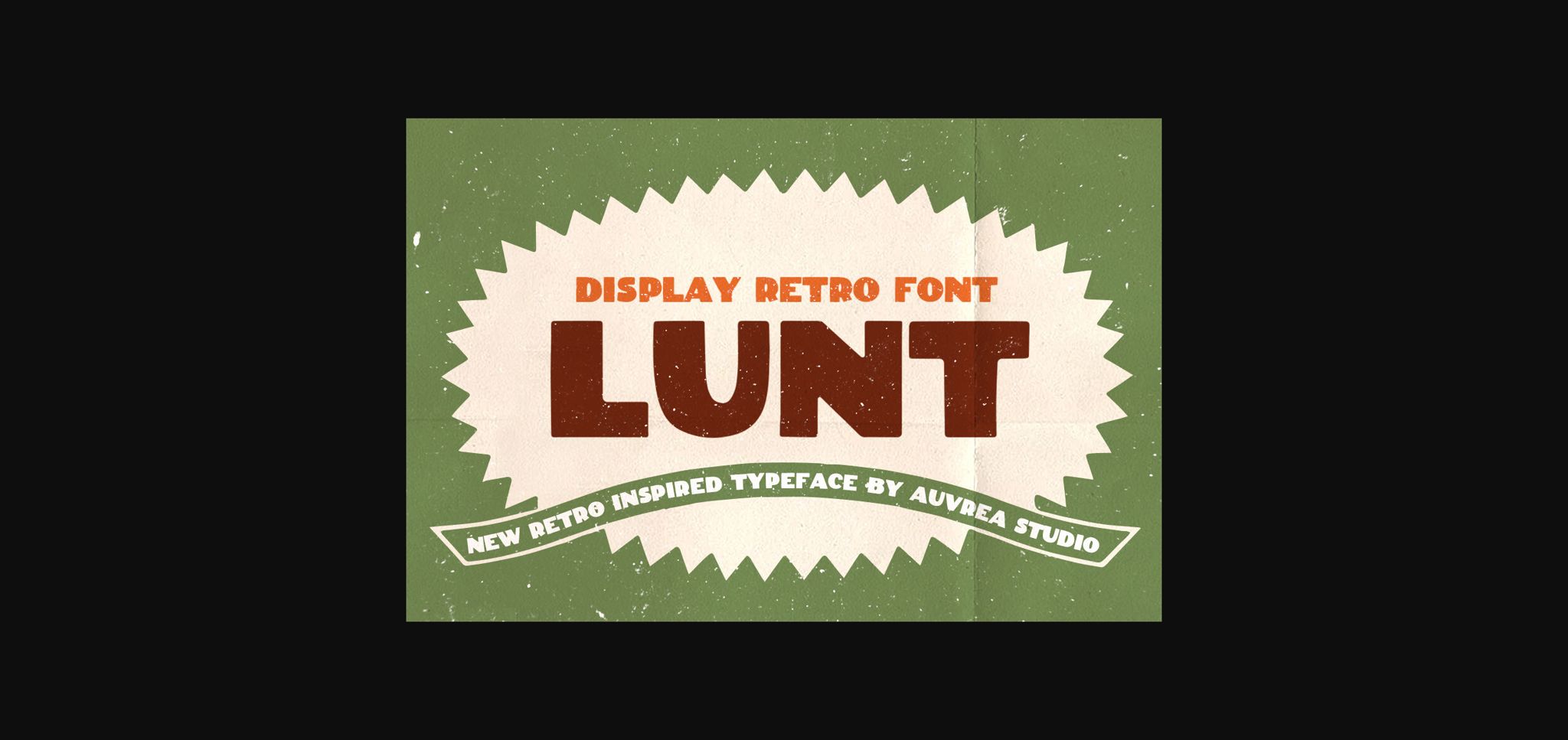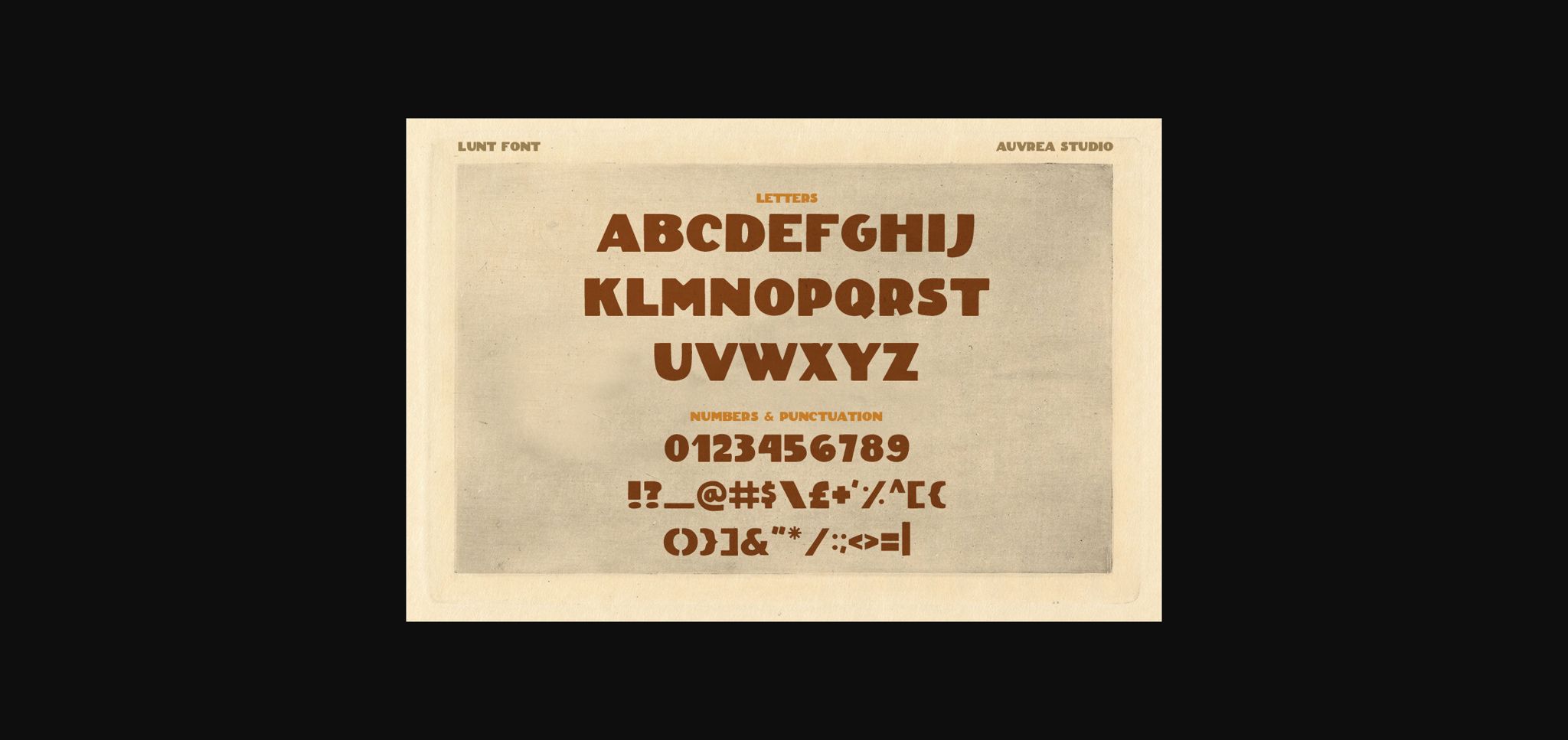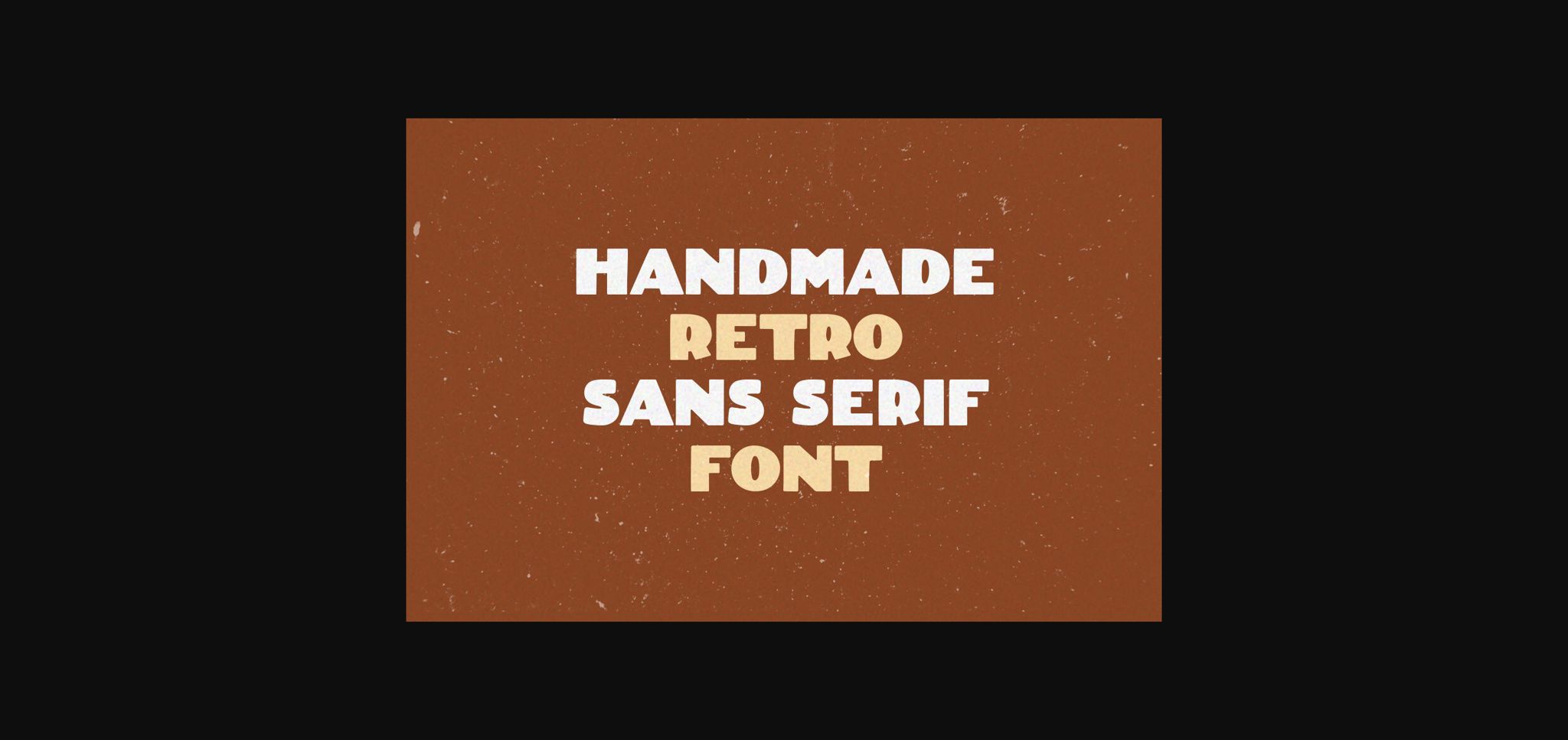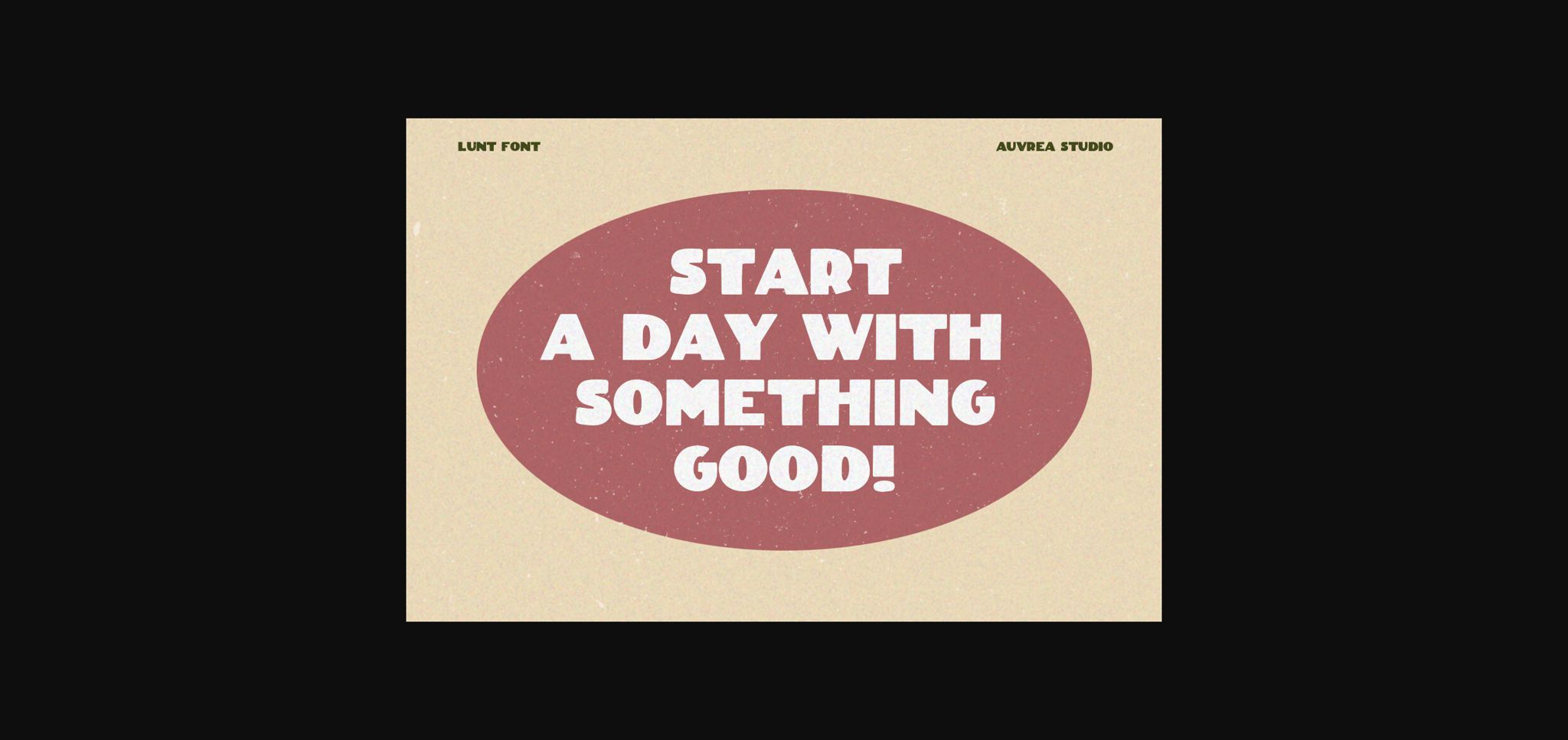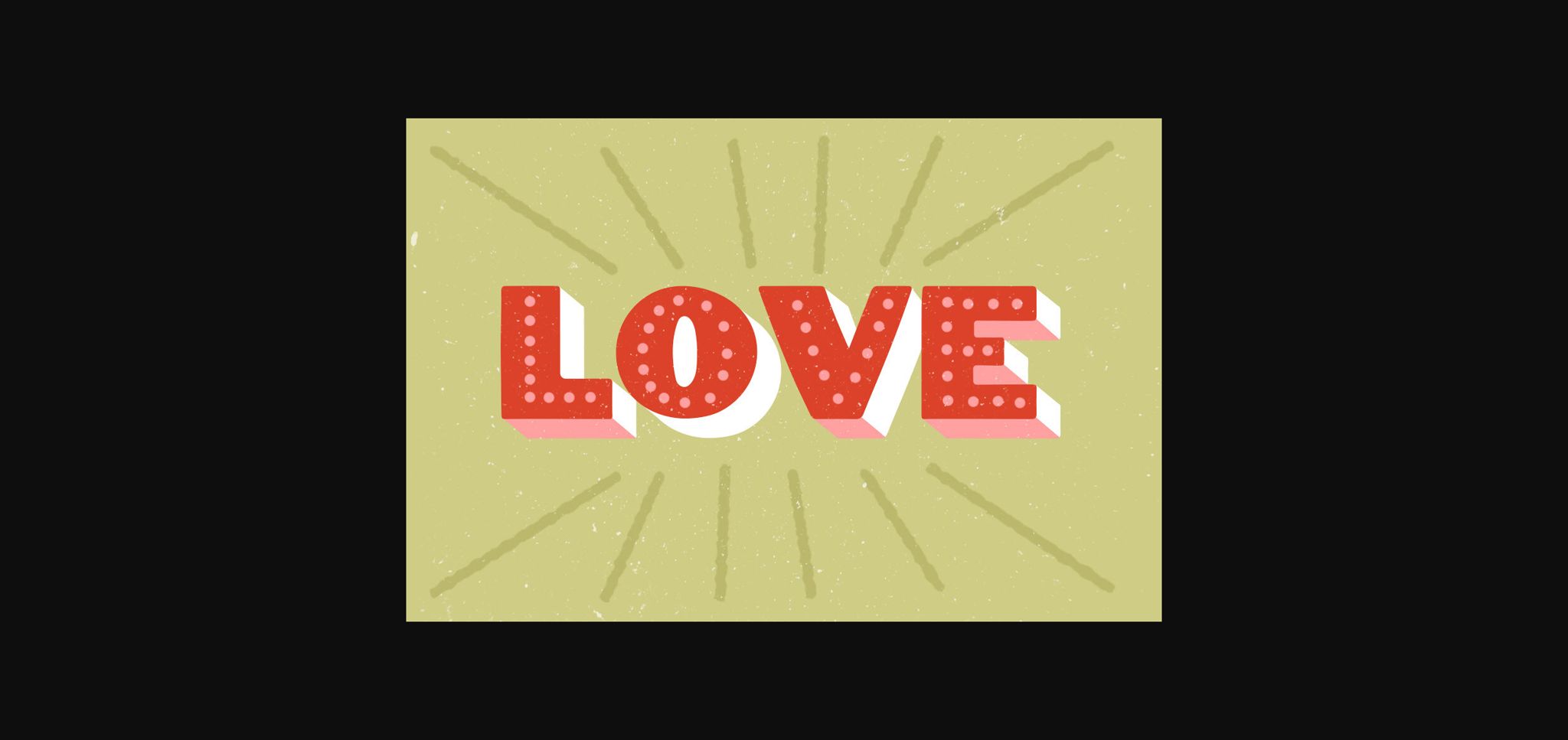
Lunt Font
About Lunt Font
Lunt is a bold display sans serif inspired by retro typefaces with soft modern look with round edges.It is perfect for your next design project like logos, magazines, branding, book covers, quotes, shirts, websites or anything in between.